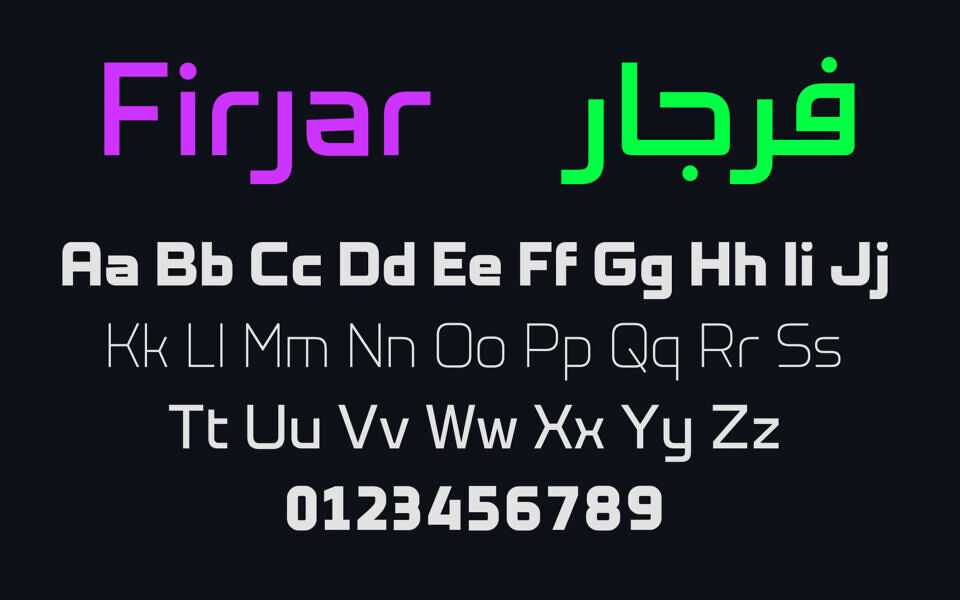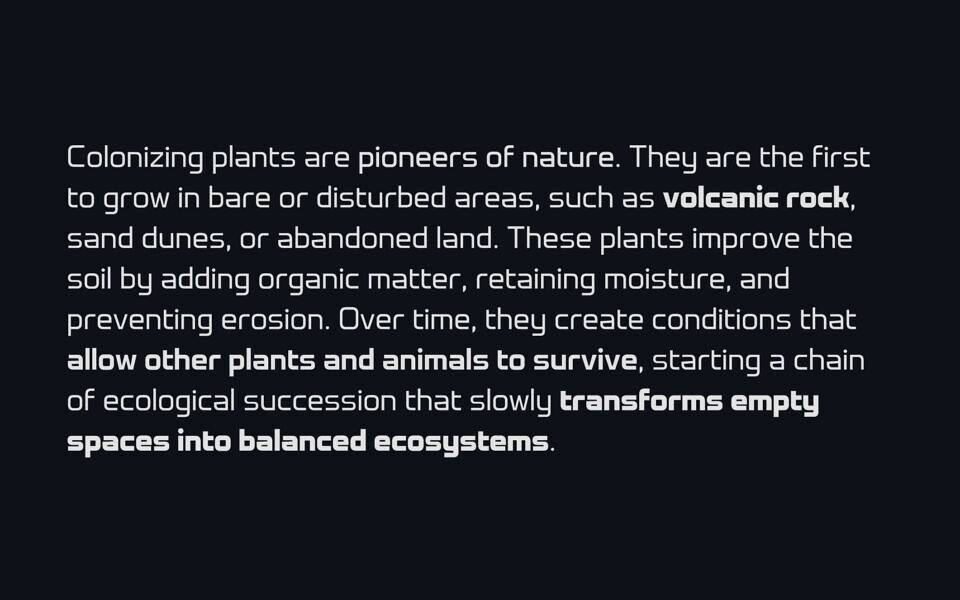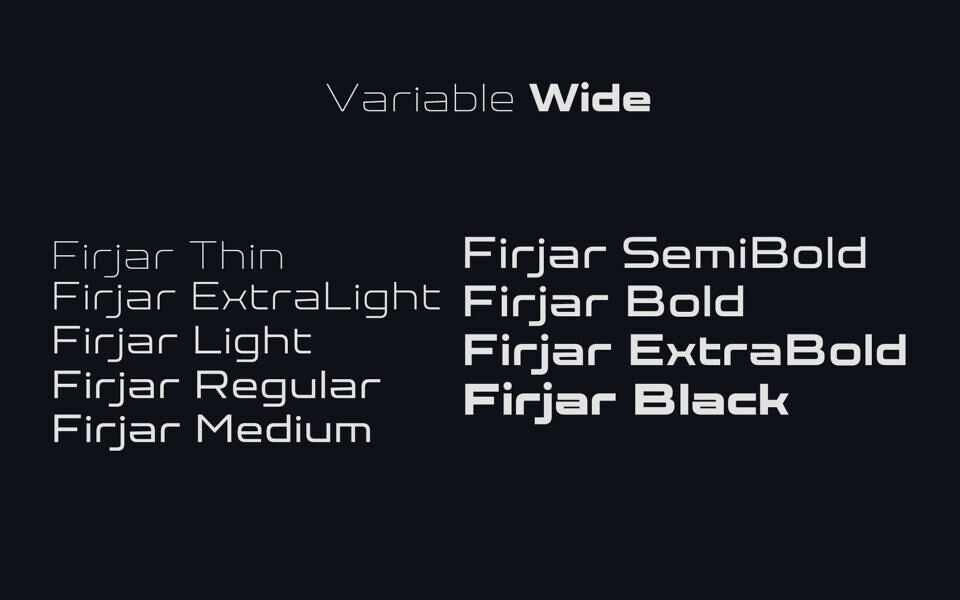
Firjar is a contemporary Kufic-inspired and minimalist bilingual typeface, covering both Arabic and Latin scripts with precision and harmony. Its name means compass in Arabic. The naming reflects the typeface design philosophy of flexibility and balance.
The concept of Firjar design is inspired by the compass’s capabilities, which are designed using quarter-circled curves combined with clean straight lines.
The typeface spans a wide range of styles, from condensed to extended widths and from thin to black weights, making it highly versatile for bold headlines, branding, user interfaces, editorial design, and display applications. Firjar has the following axes:
- The ‘wght’ axis spans Thin (100) to Black (900)
- The ‘wdth’ axis spans Condensed (75) to Expanded (125)